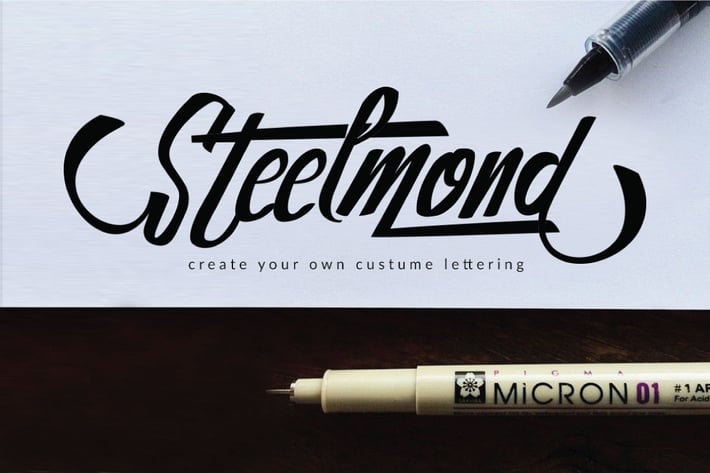
Steelmond Lettering Logotype Font
Steelmond
Steelmond is a script font inspired by brush pen hand lettering. It is highly suitable for t-shirt, signage, logo, branding, and packaging. With 326 glyphs in total and 158 alternate characters, you can play with Steelmond font to create your own custom lettering design.